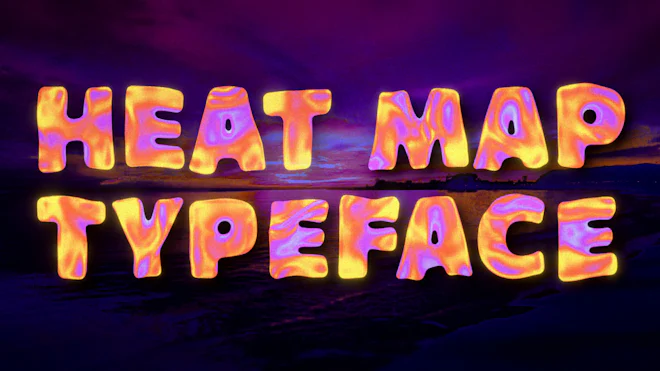
This stock motion graphics video pack includes 36 different clips of wavy iridescent heat map letters and numbers on a transparent alpha channel in a seamless loop.